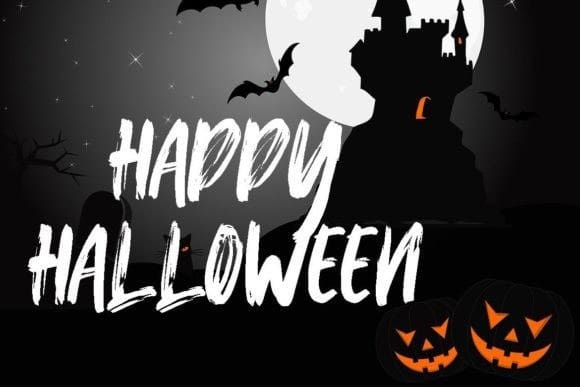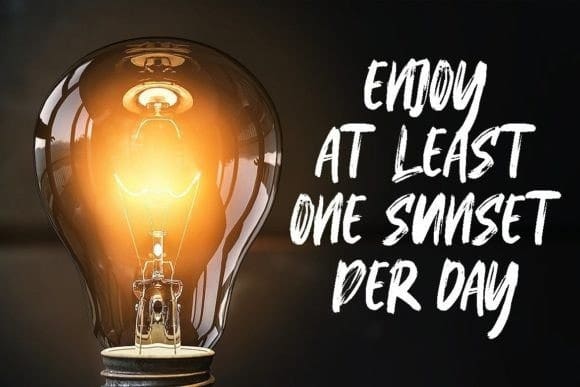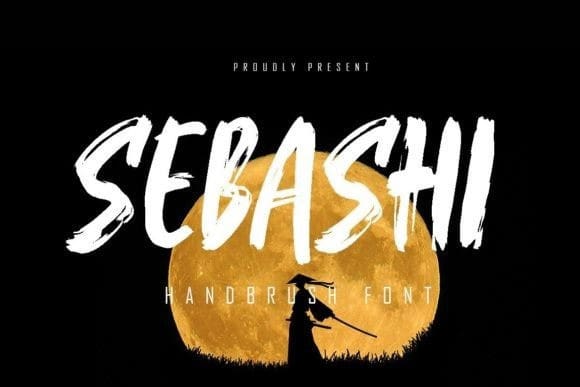
Sebashi Brush Font
Sebashi Brush Font is a textured brush display font with paint scratches or original handbrush. The original stroke of this font is suitable for film or commercial needs that can support your business or company.